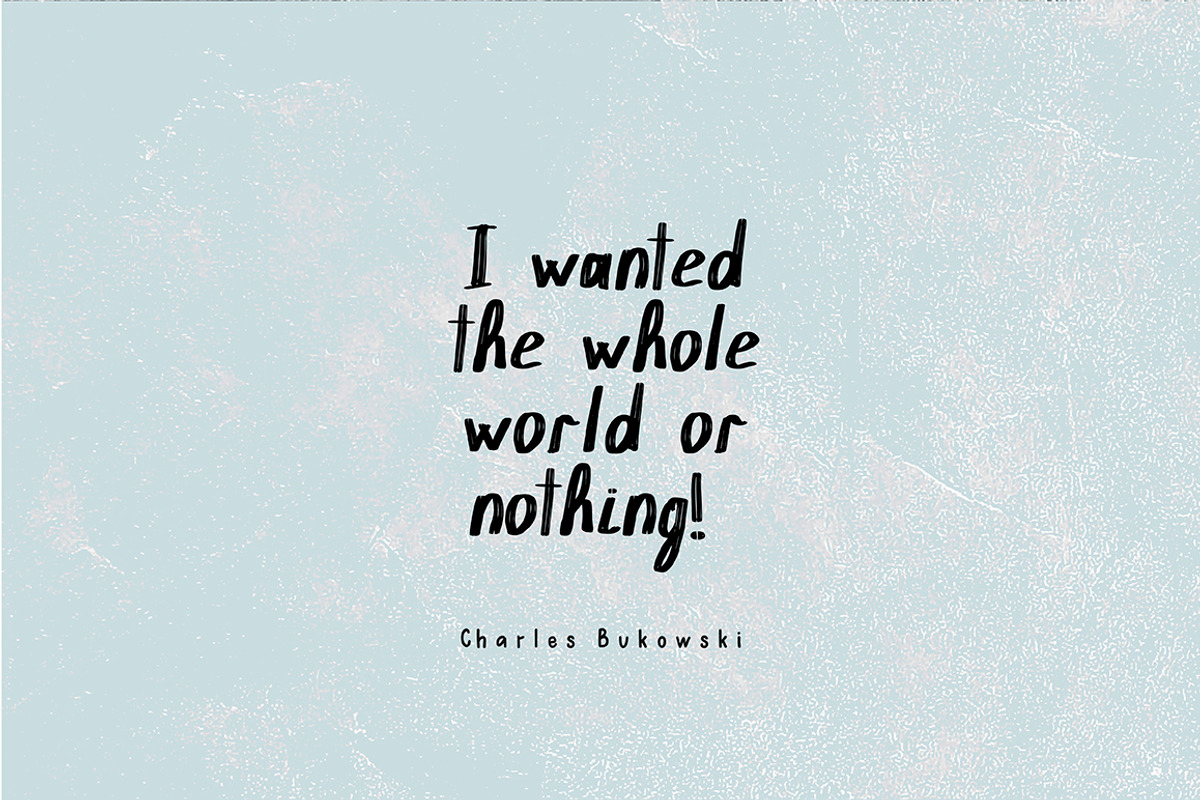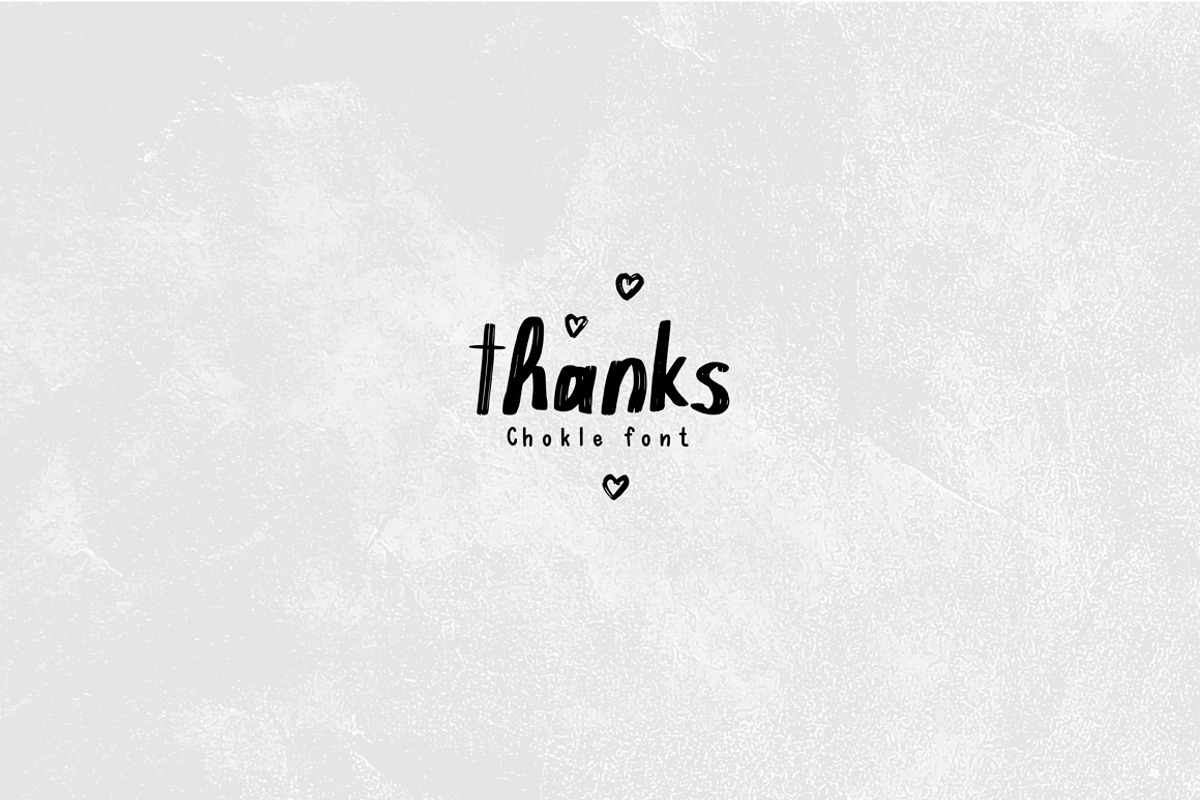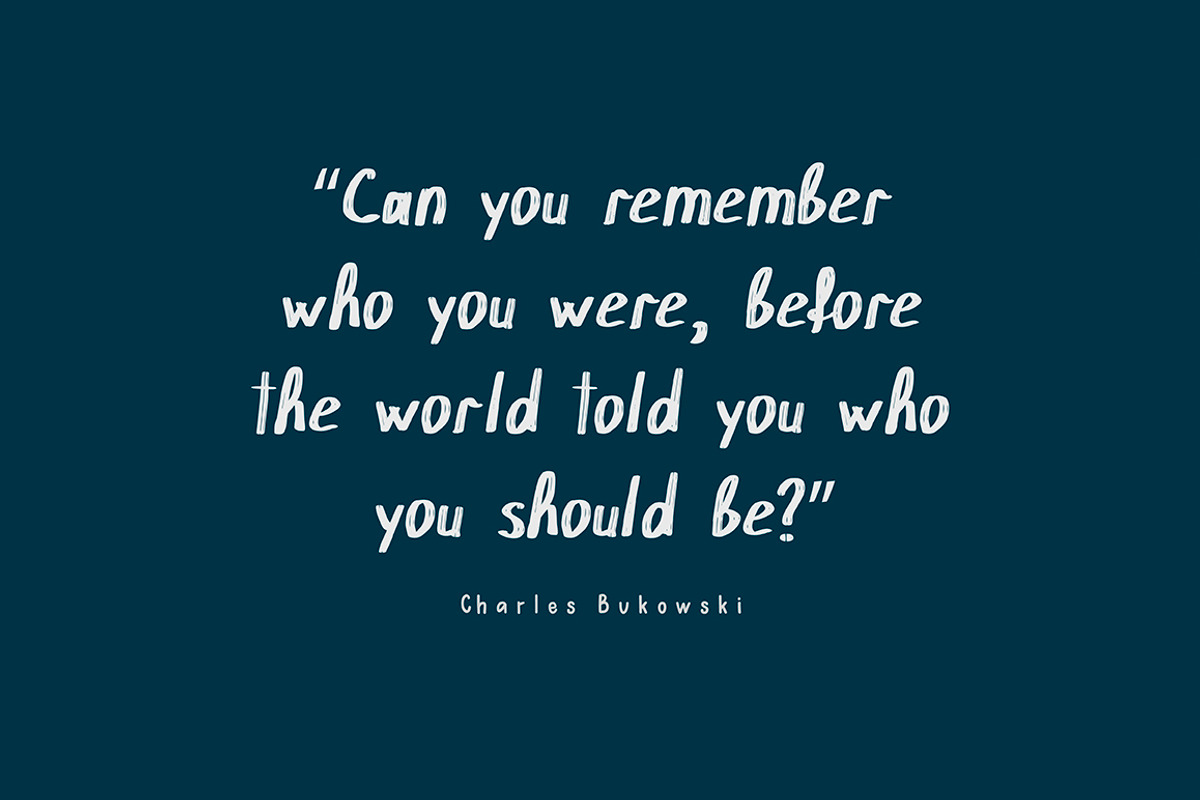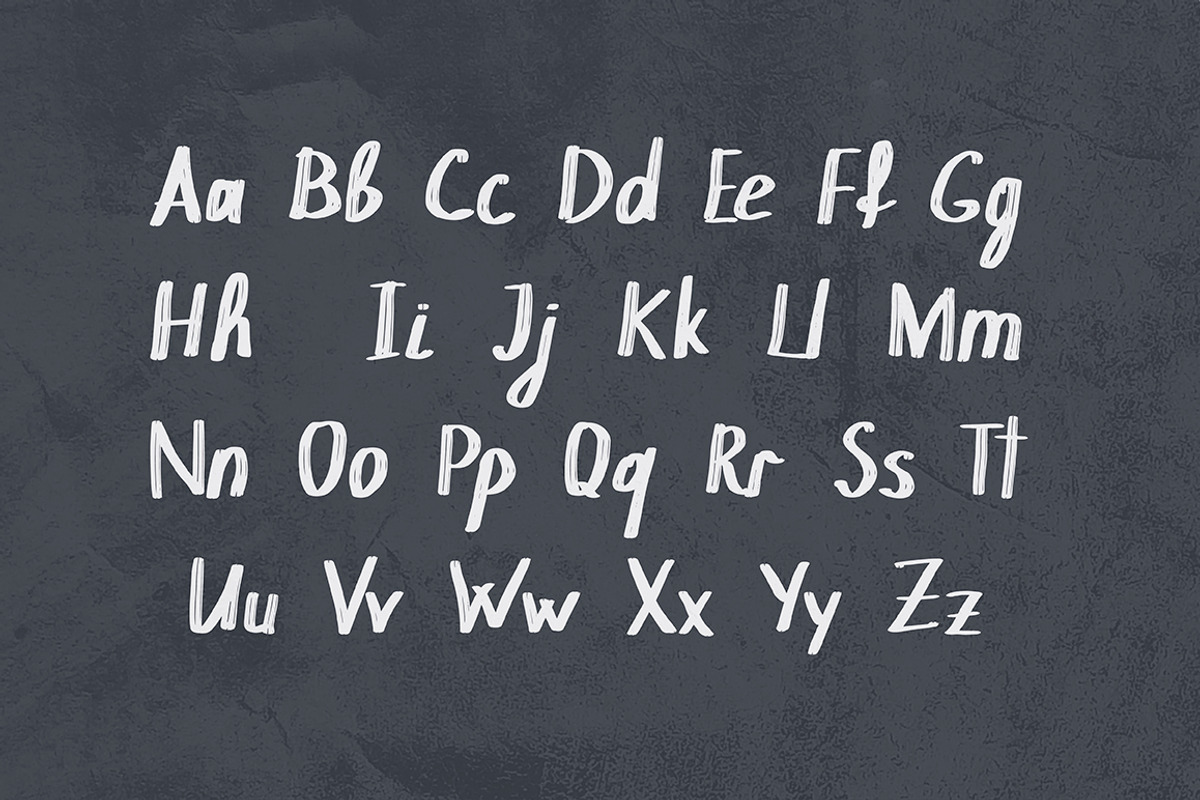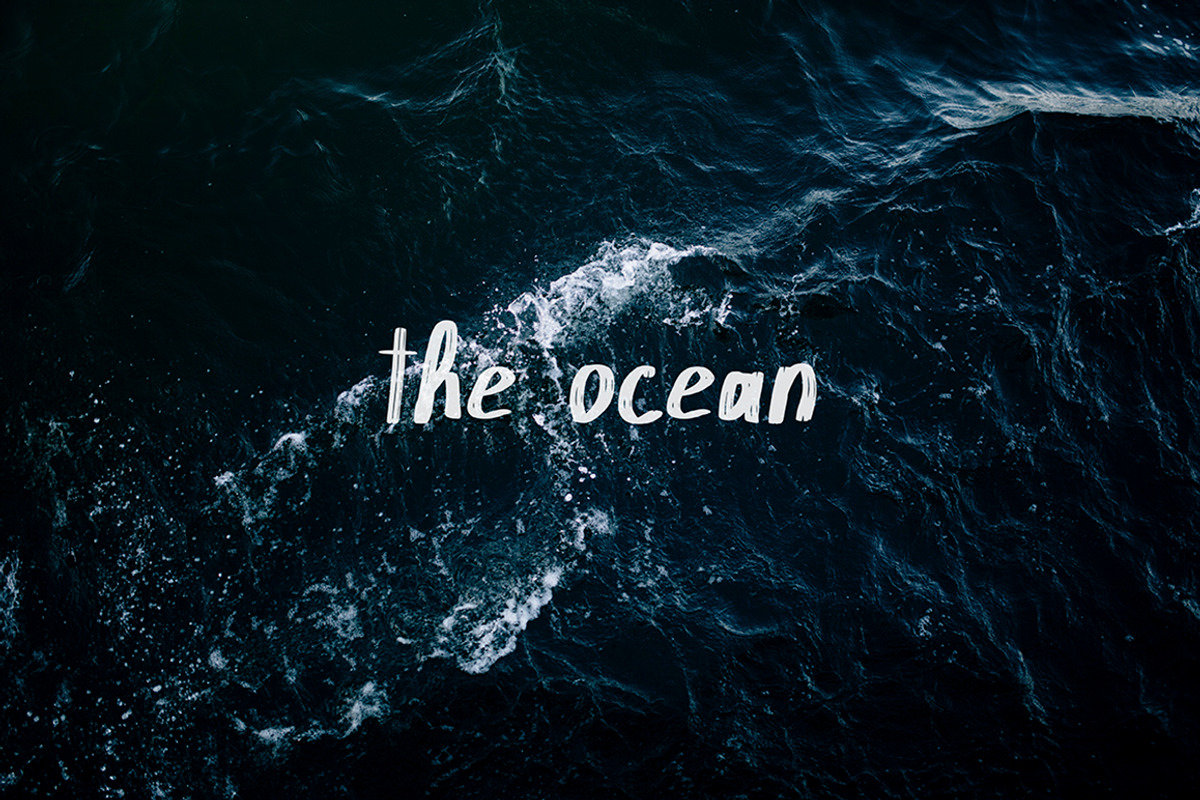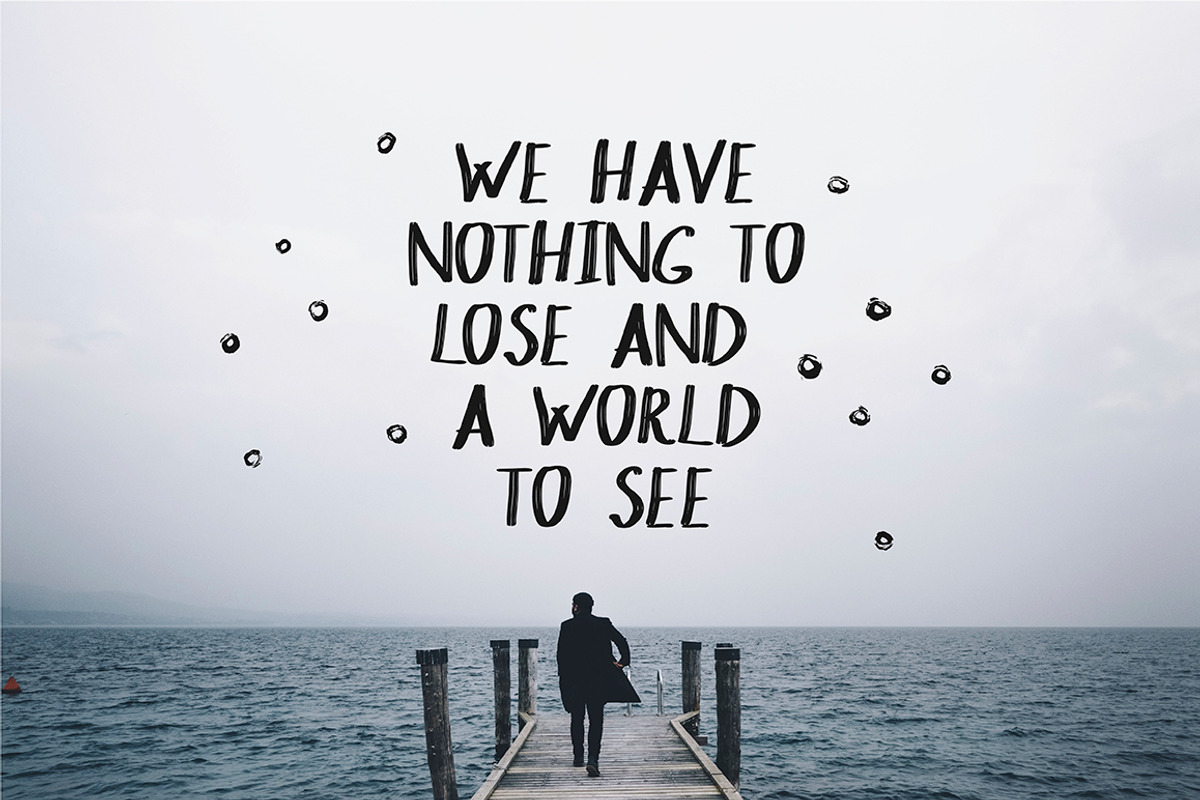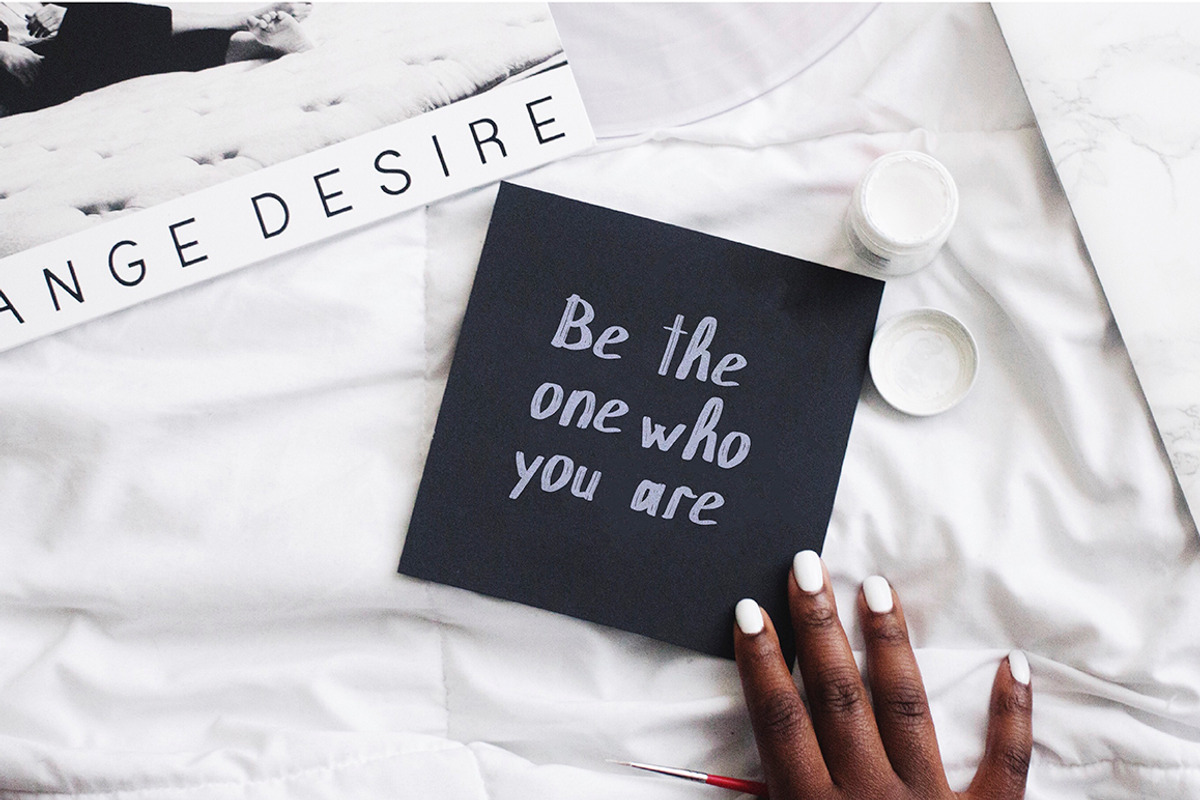
Chokle Handwritten Font
Chokle Handwritten Font by Mr.Typeman is a font selected for branding, posters, packaging, typography.
- Chokle comes with Uppercase, Lowercase and Standard Punctuation.
Why Chokle Handwritten Font is worth a look
Chokle Handwritten Font by Mr.Typeman fits naturally into Branding, posters, packaging, typography.